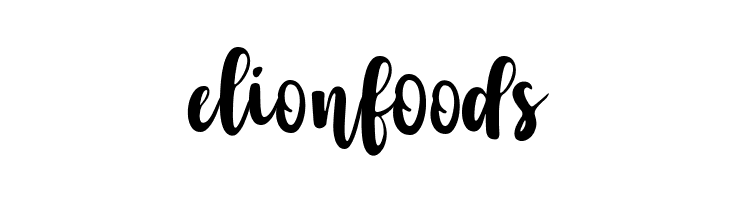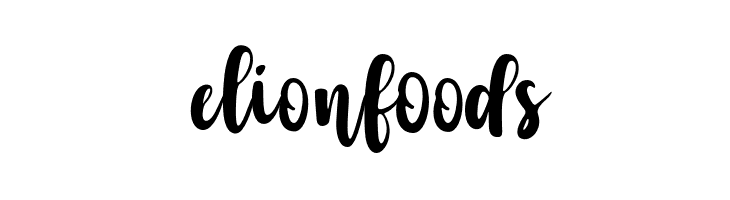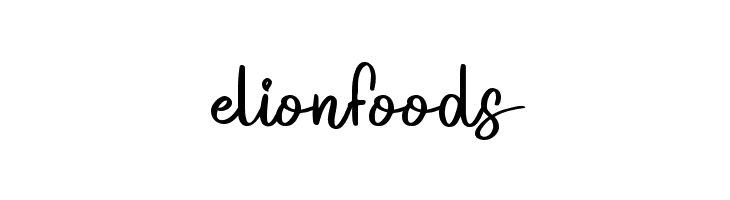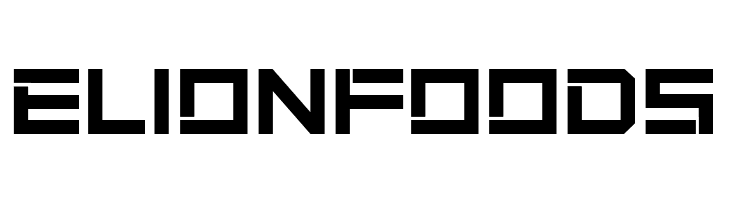
A playful and elegant script font with bold strokes and decorative flourishes.
A playful and elegant script font with decorative swirls and loops.
A bold, geometric font with a futuristic, digital style.
An elegant script font with fluid, cursive strokes and decorative swashes.
A bold, decorative font with angular lines and intricate swirls.
A bold, geometric font with decorative elements and intricate curves.
A decorative font with geometric elements and high contrast, offering a sophisticated yet playful style.
A dynamic and fluid script font with elegant, flowing letterforms.
A dynamic and flowing script font with elegant cursive letterforms.
A playful and flowing script font with elegant curves and a handwritten appeal.